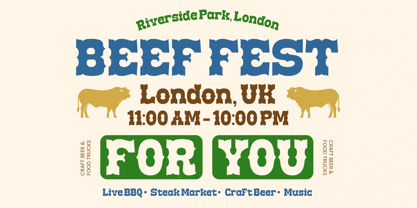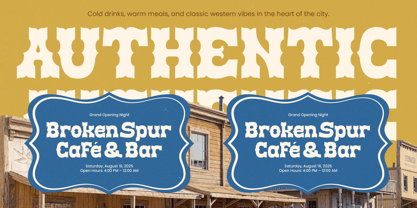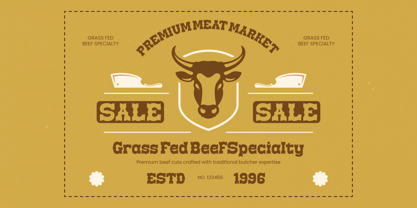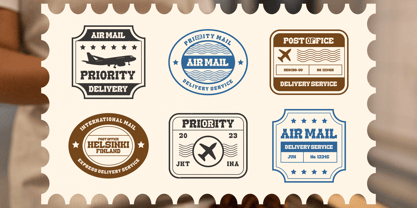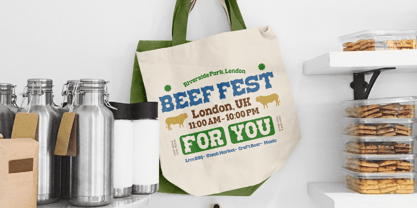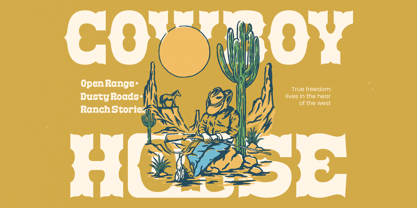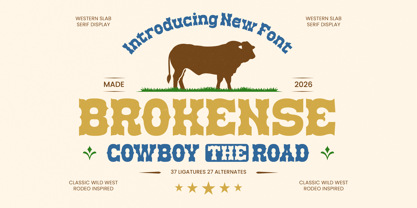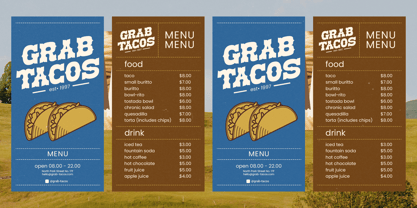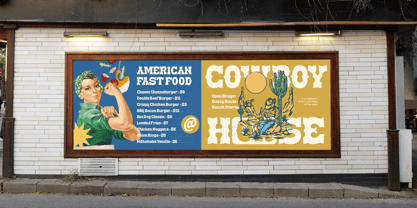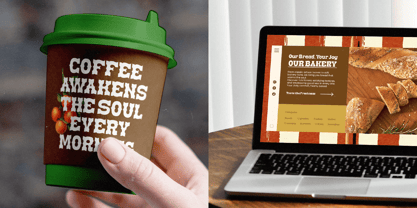
Brokense Cowboy
by Timelesstype Studio
The Brokense Cowboy Font Family was designed by Heru Utama Putra and published by Timelesstype Studio. Brokense Cowboy contains 2 styles and family package options. More about this family
Brokense Cowboy The Road is a western slab serif display font inspired by classic Wild West typography and vintage rodeo culture. Built with bold letterforms, strong slab serifs, and rugged detailing, this typeface captures the spirit of frontier signage and old saloon branding. Perfect for western-themed logos, posters, designs, packaging, signage, and retro branding projects, Brokense delivers a powerful and authentic western presence. Featuring 37 ligatures and 27 alternates, it provides stylistic flexibility while maintaining its bold cowboy character. Whether used for standout headlines or rustic branding, Brokense Cowboy The Road brings strength, heritage, and timeless western charm to both print and digital designs.